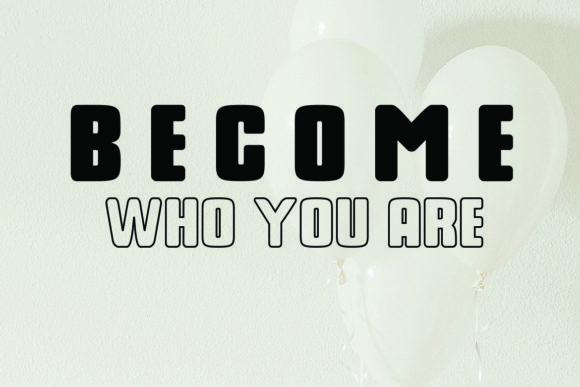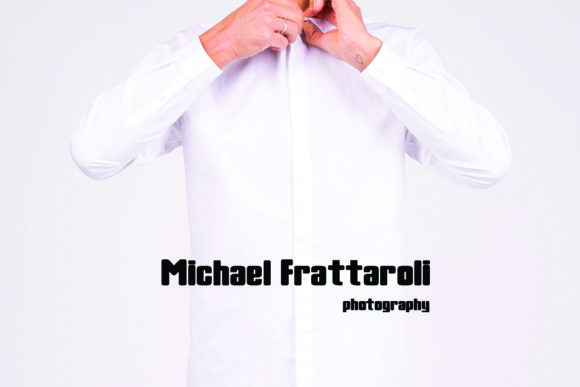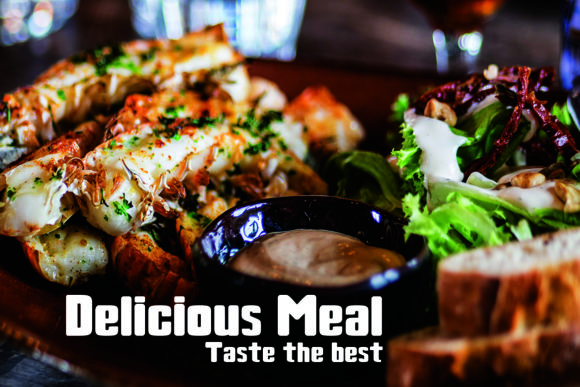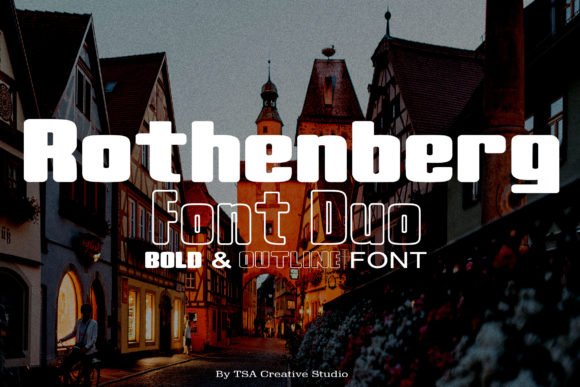
Introduction to Rothenberg Font
The Rothenberg is a striking sans serif.
Its bold letter have a great readability and are perfect for headlines, displays, logos, flyers, and much more .
Key Features of Rothenberg Font